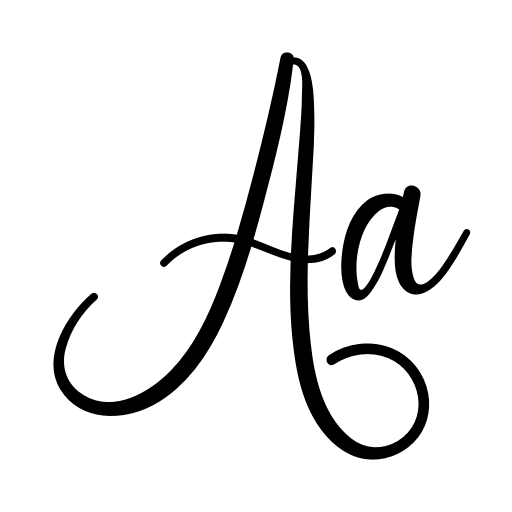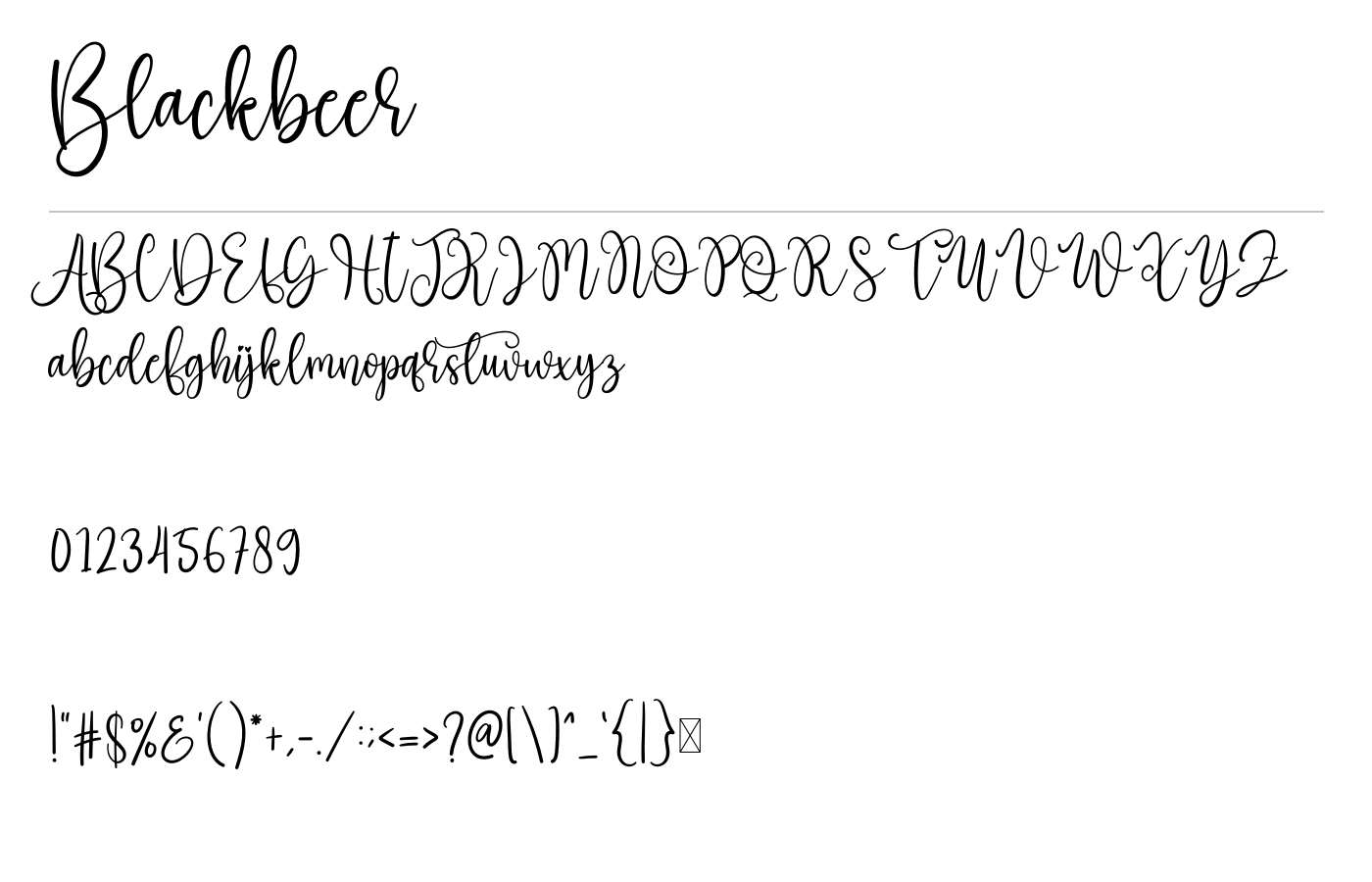
Blackbeer is a delicate script font with elegant, flowing strokes that give it a handwritten, calligraphic feel. Its slender, slightly whimsical letterforms make it perfect for designs that want to convey a sense of charm and sophistication, such as invitations, logos, and stylish branding. This font shines in creative projects where a personal, graceful touch is needed.
Blackbeer Font
About Blackbeer Font